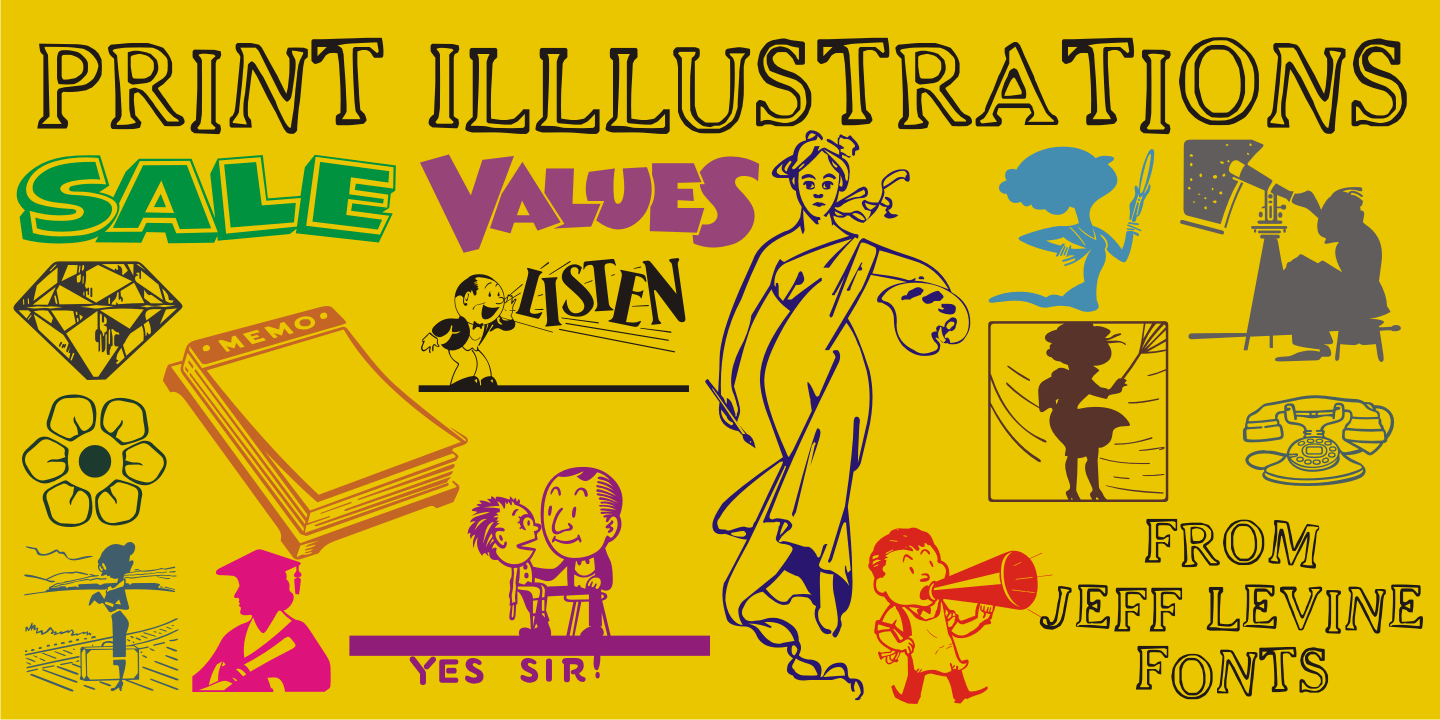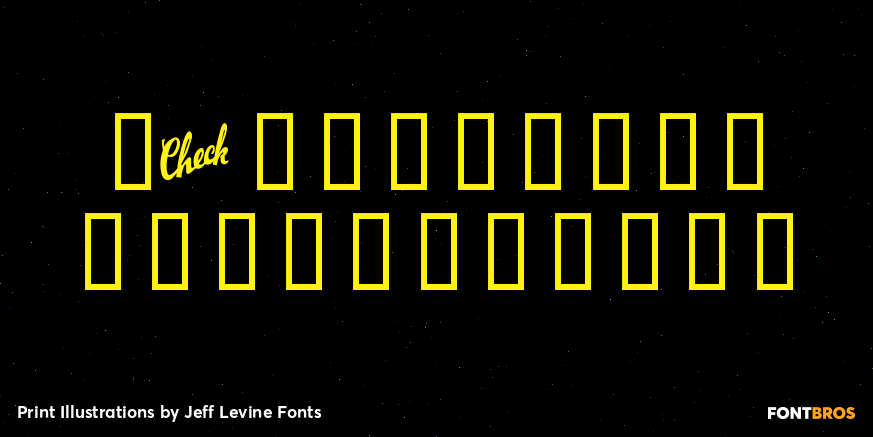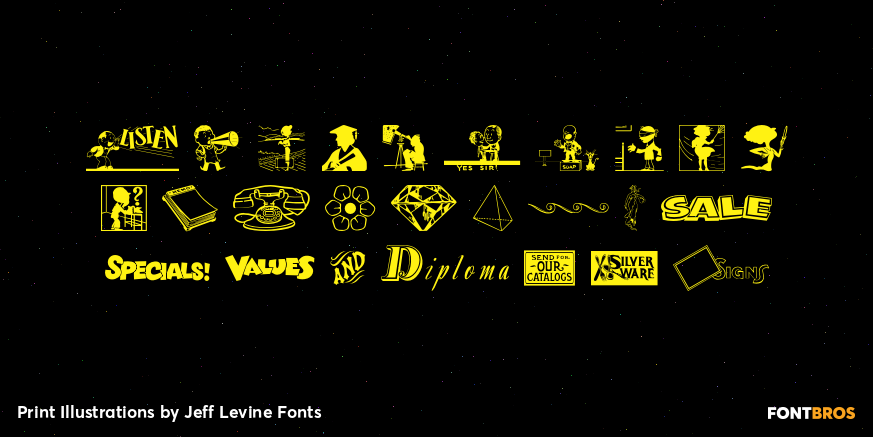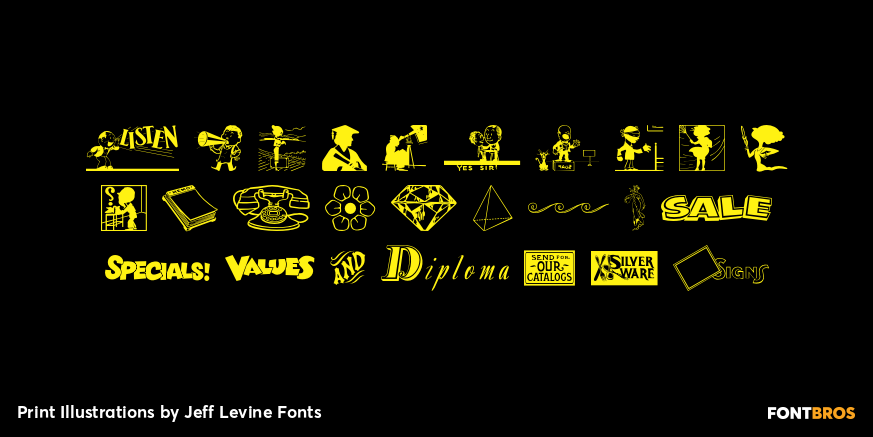
Print Illustrations
Print Illustrations JNL gathers a number of charming and functional designs redrawn from vintage sources. There are attention getters, spot illustrations, catch words and decorative embellishments all in one digital file.
Print Illustrations JNL Regular by Jeff Levine Fonts